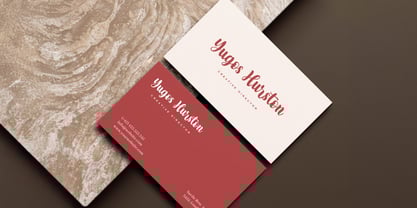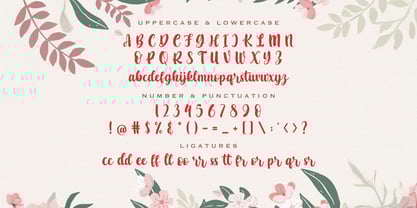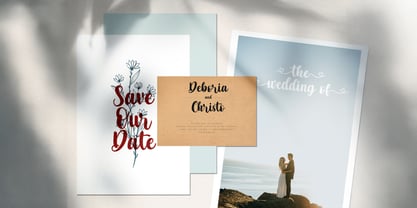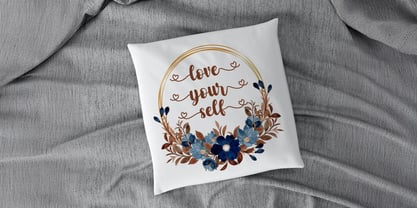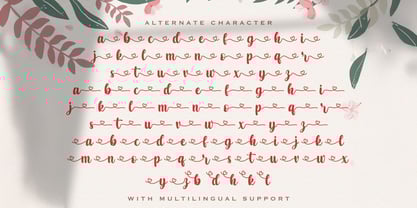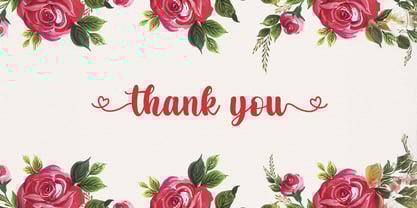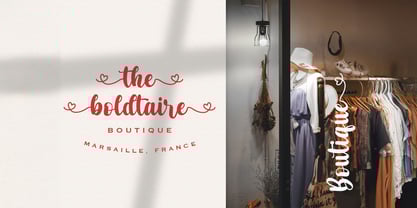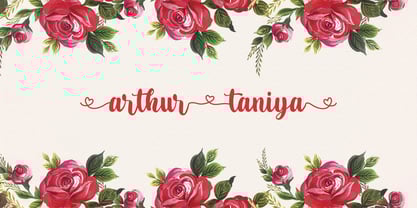
Arthur Taniya
by Stringlabs Creative Studio
The Arthur Taniya Font Family was designed by Virgiawan Listanto and published by Stringlabs Creative Studio. Arthur Taniya contains 1 styles. More about this family
Arthur Taniya is a stunning calligraphy font that embodies grace and beauty. Featuring delicate, flowing letterforms and exquisite details, this font adds a touch of sophistication to any project. Its timeless, handwritten style makes it ideal for projects that demand a refined, yet warm and inviting atmosphere.
Designers: Virgiawan Listanto
Foundry: Stringlabs Creative Studio